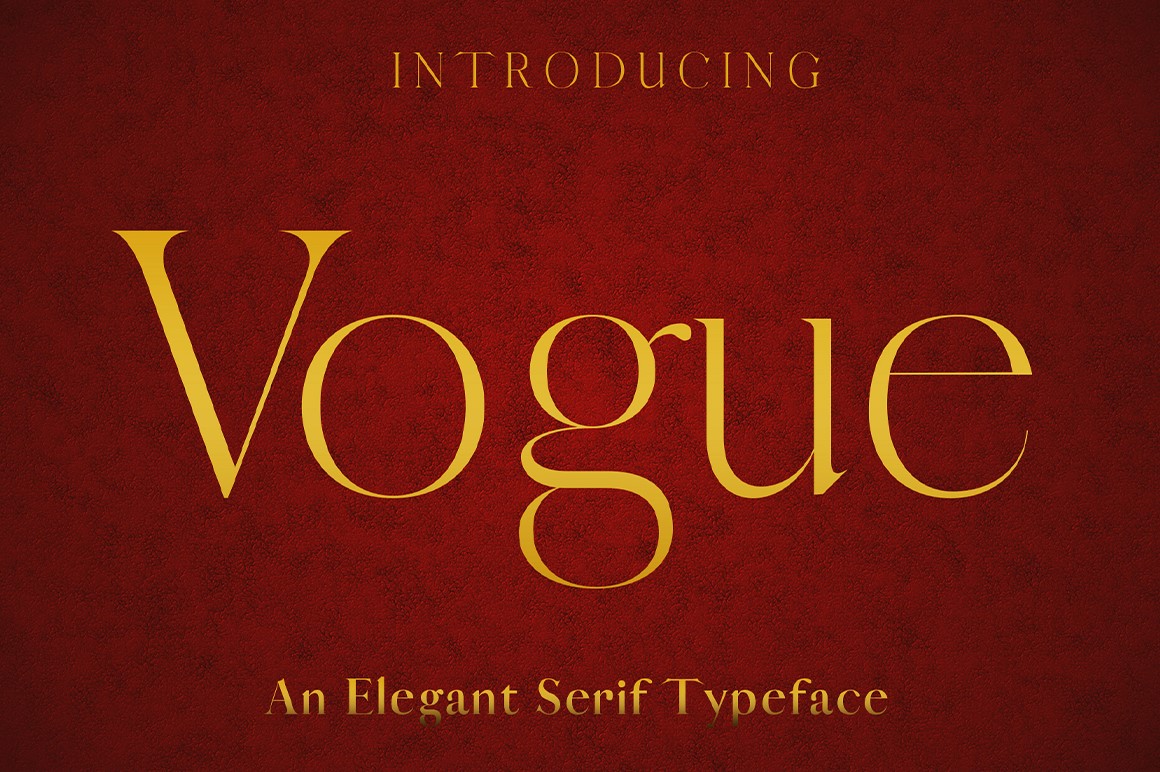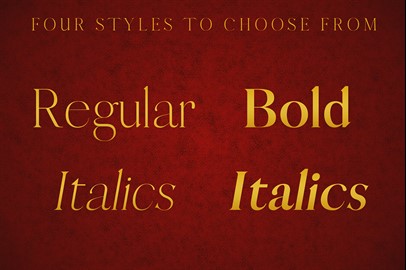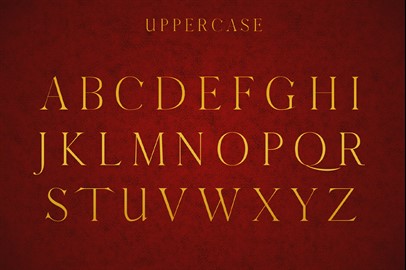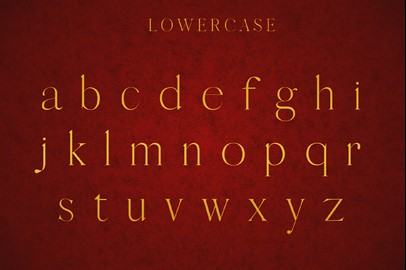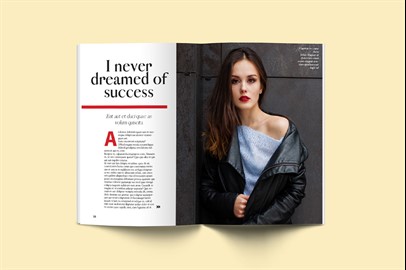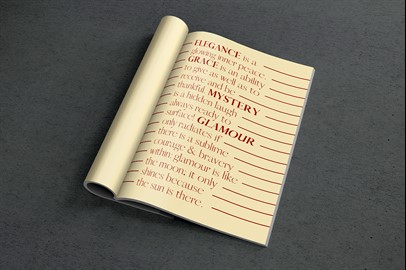
VOGUE - An Elegant Typeface
An elegant modern serif font: Vogue is a versatile font that can be used for wordmark logos, mastheads, pull quotes & monograms showing both feminine and masculine qualities. This font comes in regular, bold, bold-italics and italics.